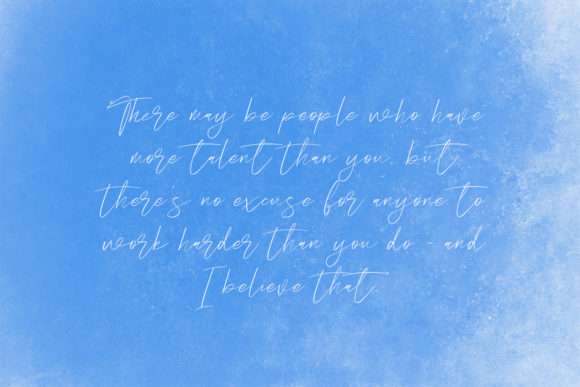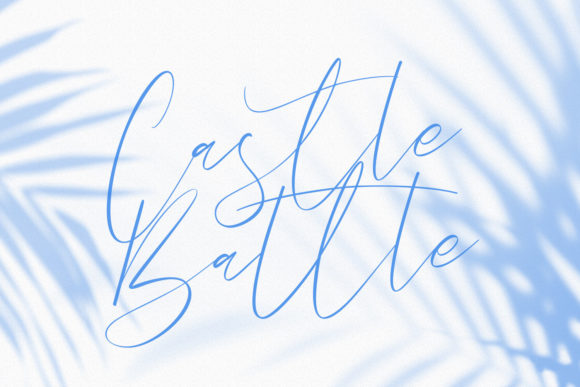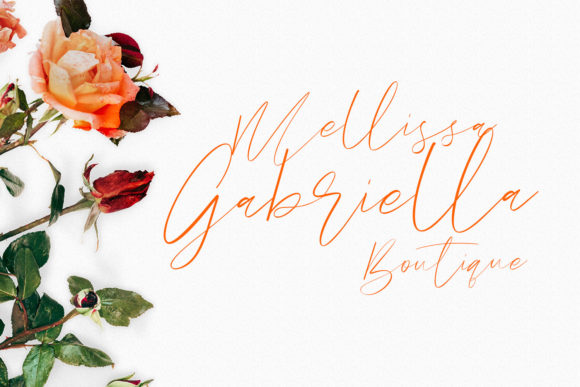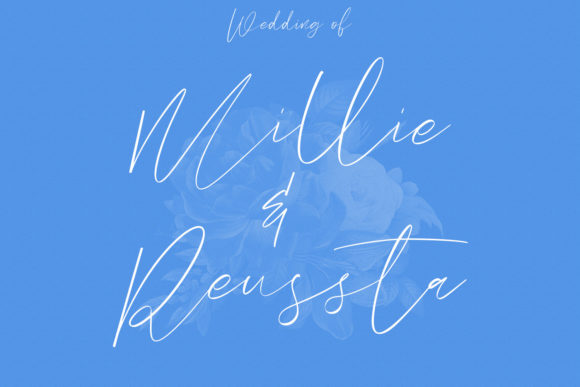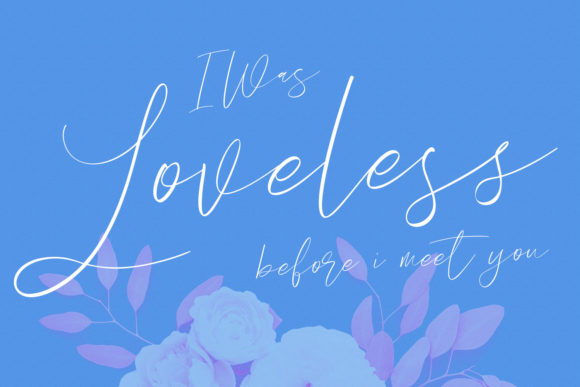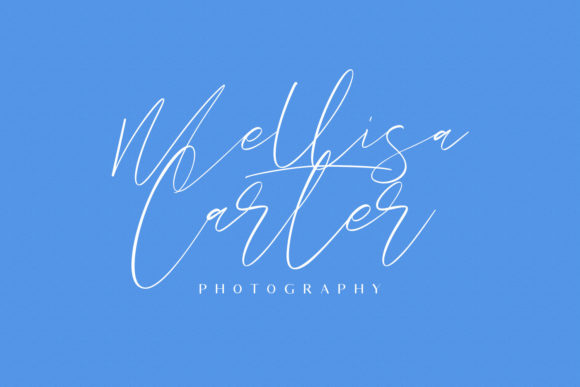
Introducing Castury Font: Elevate Your Designs with Elegance
In the world of typography, fonts play a crucial role in conveying the message and aesthetic of a design. For designers and crafters looking for a stylish and versatile font to enhance their projects, Castury Font is an excellent choice. This thin lettered and stylish handwritten font has been carefully crafted to bring balance and variety to your designs, making it perfect for a wide range of applications.
The Beauty of Castury Font
Castury Font is characterized by its thin yet elegant lettering, striking a perfect balance between subtlety and visibility. Not too thin and not too thick, this font is designed to add a touch of sophistication to your projects without overpowering them. The varied letterforms and carefully crafted strokes bring a sense of movement and fluidity to the font, making it ideal for designs that require a personal touch.
Key Features of Castury Font
• Thin Lettered: Castury Font features delicate and refined lettering that adds a touch of elegance to your designs.
• Stylish Handwritten: The font’s handwritten style brings a personal and creative feel to your projects, making them stand out from the crowd.
• Balanced: The carefully crafted strokes and letterforms ensure that the font remains balanced and harmonious, making it easy to read and visually appealing.
• Varied: The font features varied letterforms and strokes, adding a sense of movement and fluidity to your designs.
Uses of Castury Font
Castury Font is a versatile font that can be used in a wide range of design applications, including:
• Branding and Logo Design: The font’s elegant and sophisticated feel makes it perfect for creating logos and brand identities that require a touch of refinement.
• Stationery and Invitations: Castury Font is ideal for designing stationery, invitations, and greeting cards that require a personal and creative touch.
• Digital and Print Media: The font can be used in digital and print media, including brochures, flyers, and social media graphics.
• Crafting and DIY Projects: Castury Font is perfect for crafters and DIY enthusiasts who want to add a touch of elegance to their projects, such as handmade cards, scrapbooking, and journaling.
Why Choose Castury Font?
With so many fonts available, why choose Castury Font? Here are a few reasons:
• Unique and Creative: Castury Font offers a unique and creative way to express yourself through your designs.
• Elegant and Sophisticated: The font’s elegant and sophisticated feel makes it perfect for designs that require a touch of refinement.
• Versatile: Castury Font can be used in a wide range of design applications, making it a valuable addition to your font library.
• Easy to Read: The font’s carefully crafted strokes and letterforms ensure that it remains easy to read, even at small sizes.
In conclusion, Castury Font is a stylish and versatile font that can elevate your designs with elegance and sophistication. Its thin lettered and stylish handwritten feel makes it perfect for a wide range of design applications, from branding and logo design to crafting and DIY projects. With its unique and creative feel, Castury Font is an excellent choice for designers and crafters looking to add a touch of refinement to their projects.